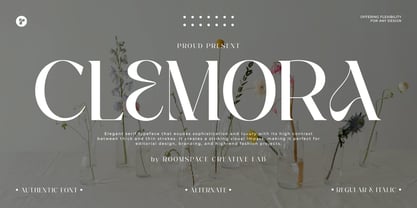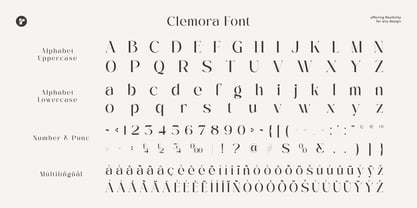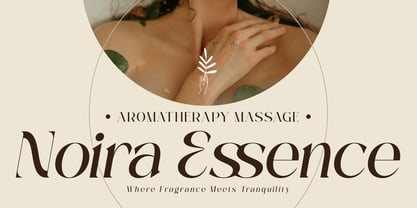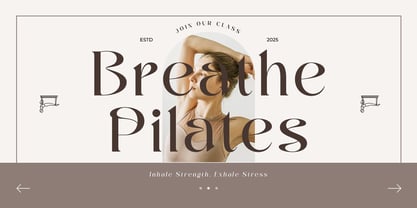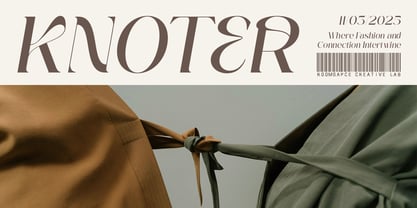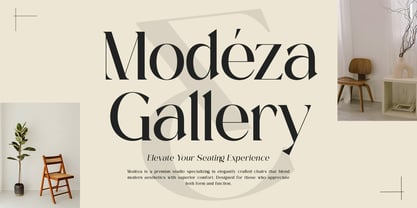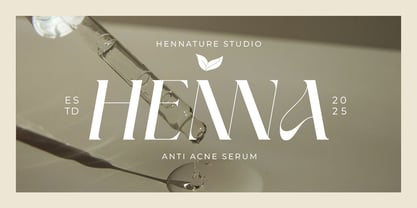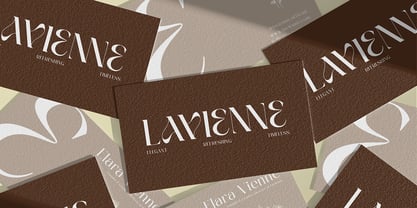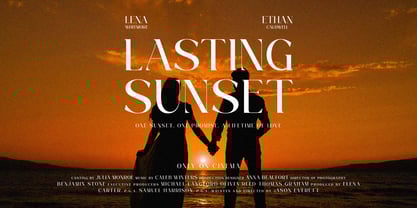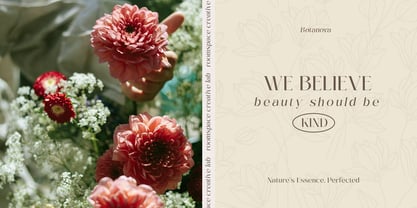
Clemora
Die Schriftfamilie Clemora wurde von Bakhrudin Ja'far entworfen und von Jafar07 veröffentlicht. Clemora enthält 2 Stile und Familienpaketoptionen. Mehr über diese Familie
Clemora is an elegant serif typeface that merges classic sophistication with a contemporary flair. Drawing inspiration from fashion and editorial design, it exudes a feminine, luxurious aesthetic, making it an ideal choice for branding, weddings, logos, packaging, websites, and social media. With its refined letterforms and premium appearance, Clemora is perfect for designers who seek a stylish, minimalist typeface. This versatile font features ligatures and unique letter alternates, fostering creativity and exclusivity in every project, ensuring that your designs stand out with elegance and charm.
Designer: Bakhrudin Ja'far